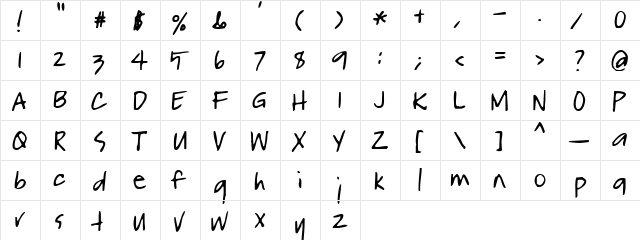
Charyn Hand
| Style | Hand |
| Foundry | Font Garden |
| Designer | Ellinor Rapp |
Design Context for Charyn Typeface
Charyn flows with the natural rhythm of handwritten lettering, making it ideal for designs that call for warmth and personal expression.
Font Pairing: Combine Charyn with a simple geometric sans for maximum contrast — the tension between flowing curves and clean structure is a classic typographic pairing.
Pro Tip: Use Charyn for short runs of text — names, titles, or taglines. Extended body copy in script faces tires the eye quickly.